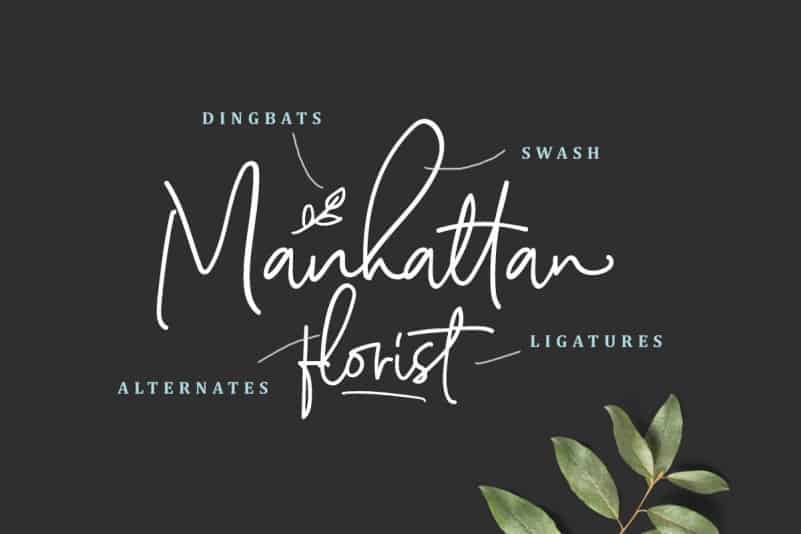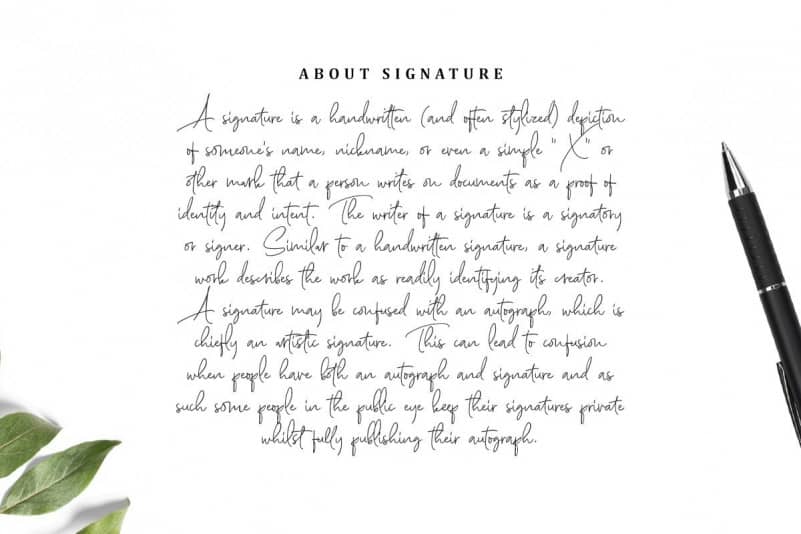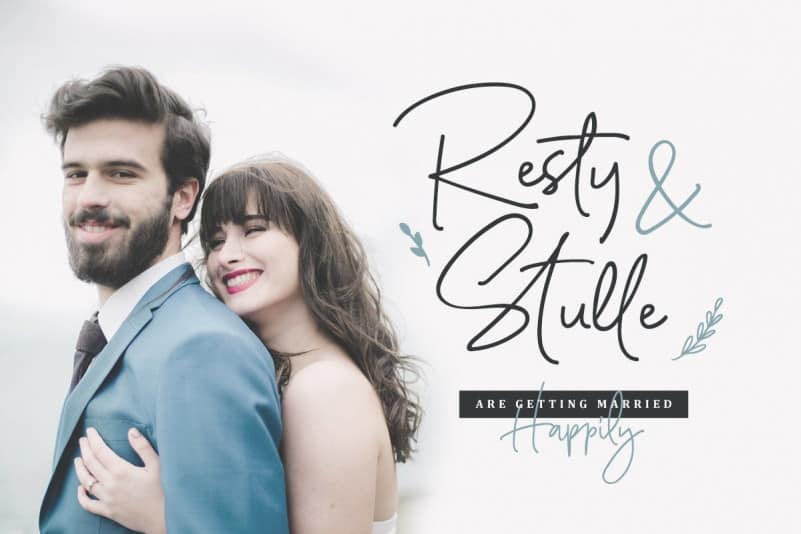
Scarlette Signature Font
Scarlette Font is a handwritten style signature font. This stylish font features a messy, casual look and ligatures to enhance the flow of the handwriting look & feel of your project! Scarlette Signature Font is designed and shared by Saridezra. It’s signature that contain lowercase, uppercase, symbol, and also support multi language. There’s a lot ligatures in this font. It’s also comes with doodle font that you can use to make a logo for branding, beautiful fashion design, suitable for wedding invitation, or handwritten quote. Also already PUA Encoded.